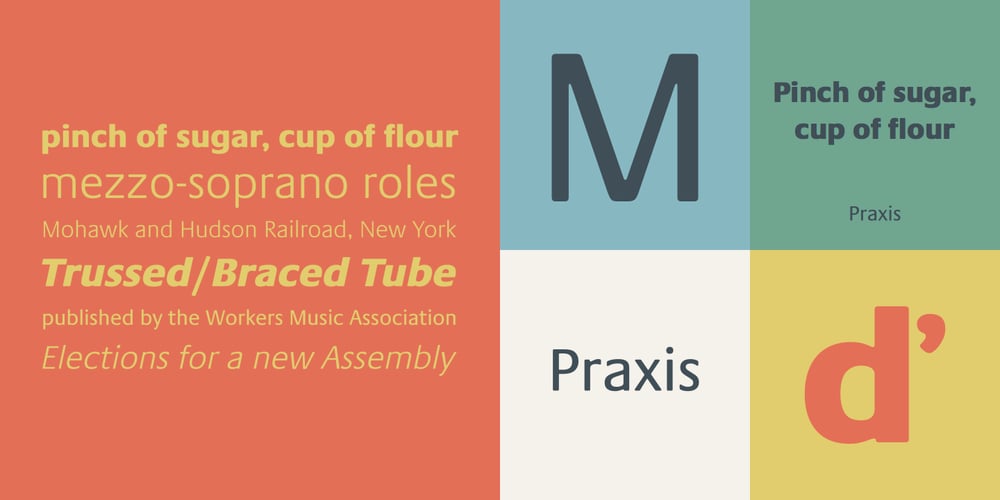
Praxis Font Family was designed by Gerard Unger and published by Linotype. Praxis contains 10 styles and family package options. Praxis™ was designed in 1976 by Gerard Unger for the German technology corporation Dr.-Ing Rudolf Hell. Praxis is the sans serif counterpart to Demos, another early digital type designed by Unger, who is an accomplished Dutch typographer and teacher. Praxis and Demos share important characteristics, such as open counters, a tall x-height, and blunt stroke terminations. Both faces have very little thick/thin variation, which facilitates smooth linear enlargement and reduction. And like Demos, Praxis is a flexible and legible typeface that works well in small point sizes and on low-quality paper (office documents, newsletters, newspapers, etc.). The word “Praxis” comes from Greek, and means “a practical application.” In the late 1990s, Demos and Praxis, along with Univers 57, were selected as the official typefaces of the German Government. More info. In 1990, Linotype AG merged with Dr.-Ing Rudolf Hell GmbH, forming the Linotype-Hell AG (today Linotype GmbH). Since then, Linotype has been the official source of all fonts that were originally designed for the Hell Corporation. Linotype has also improved the typefaces using new technologies, including OpenType.”